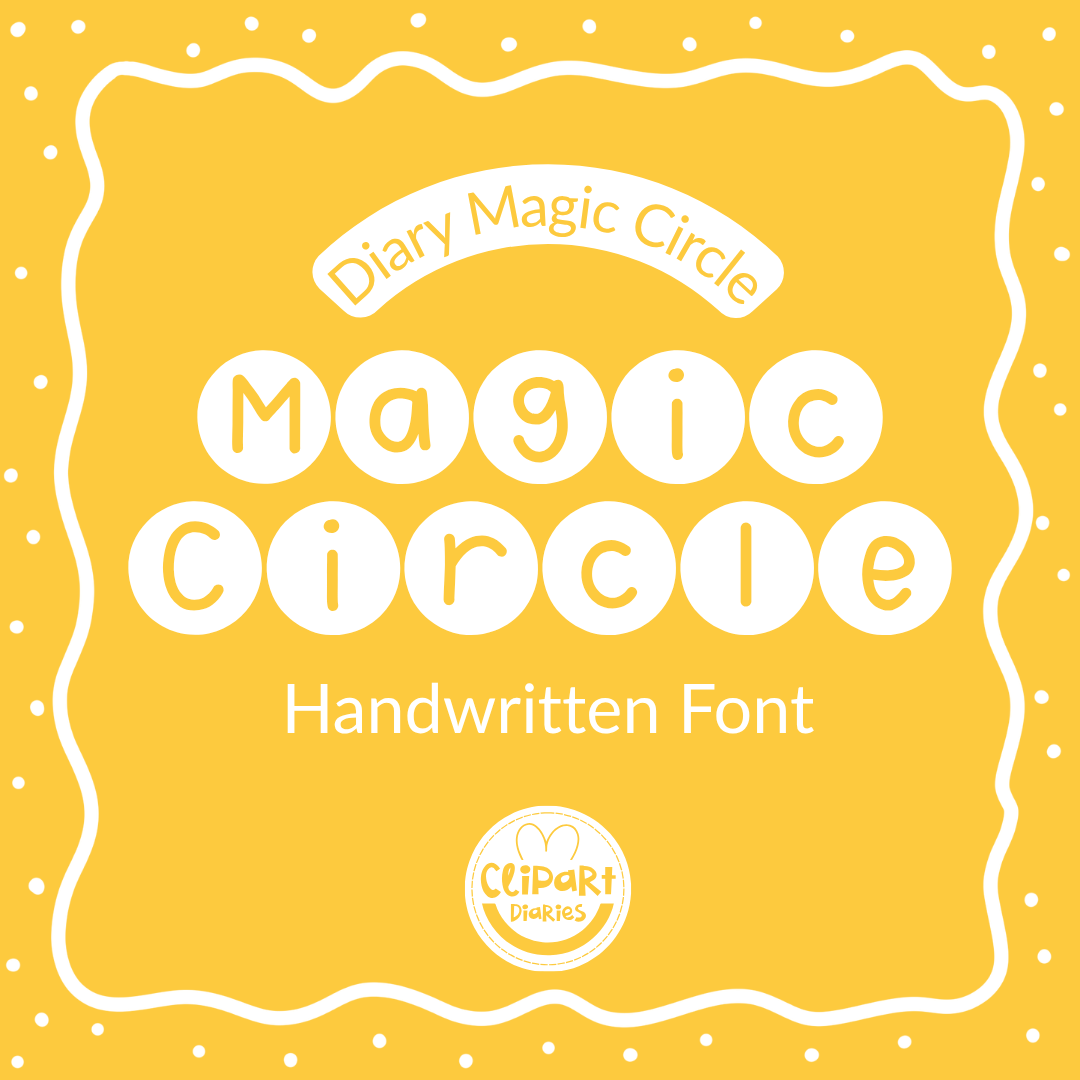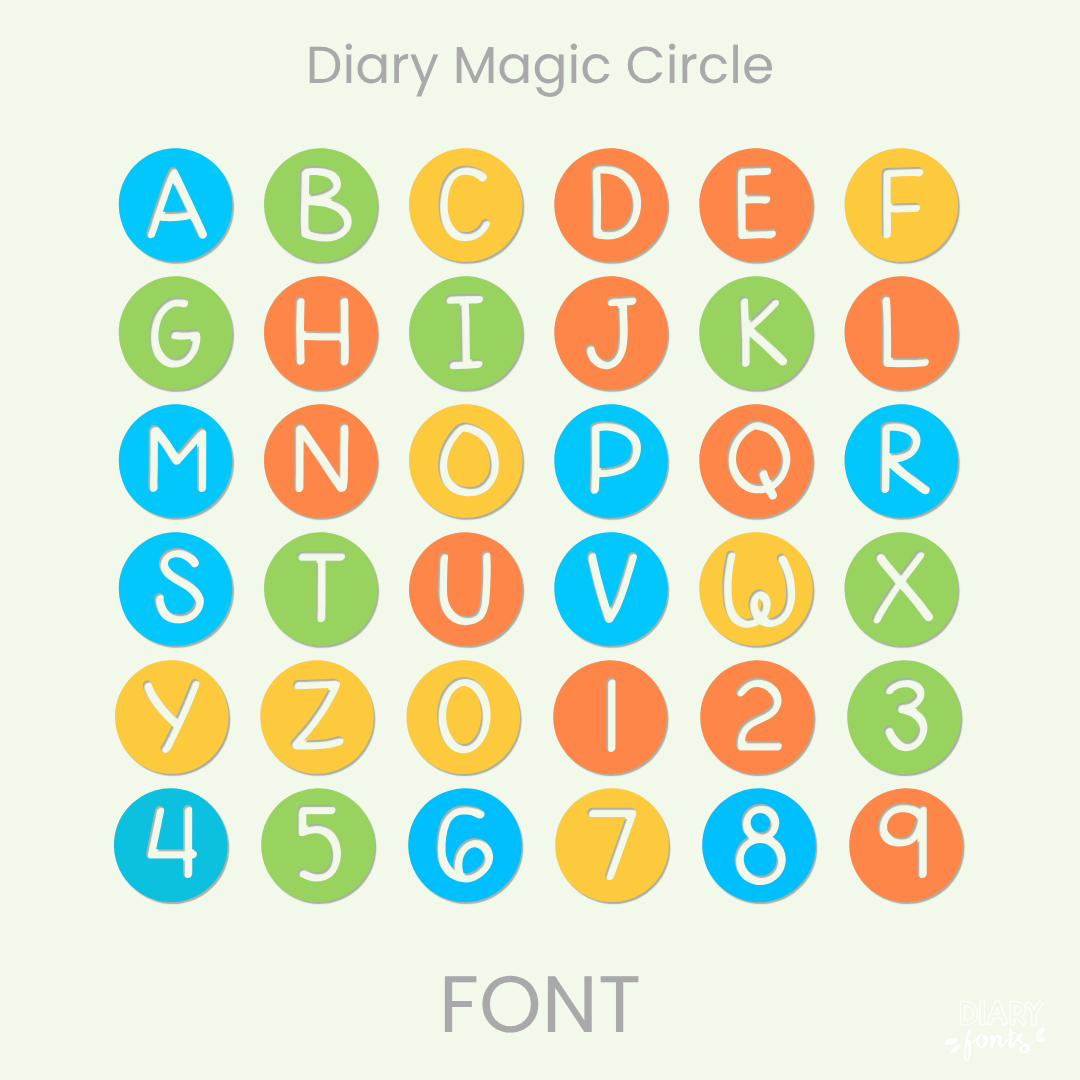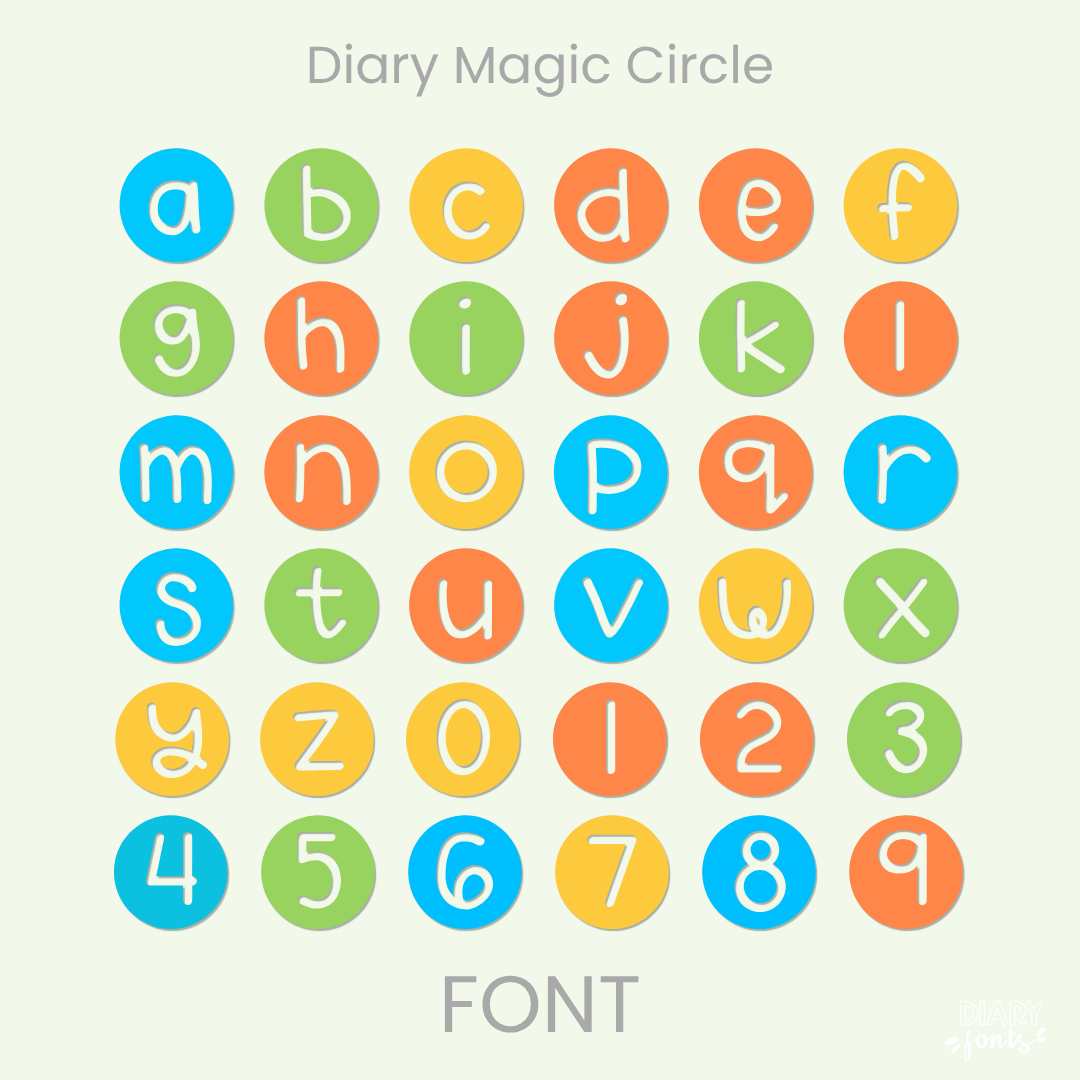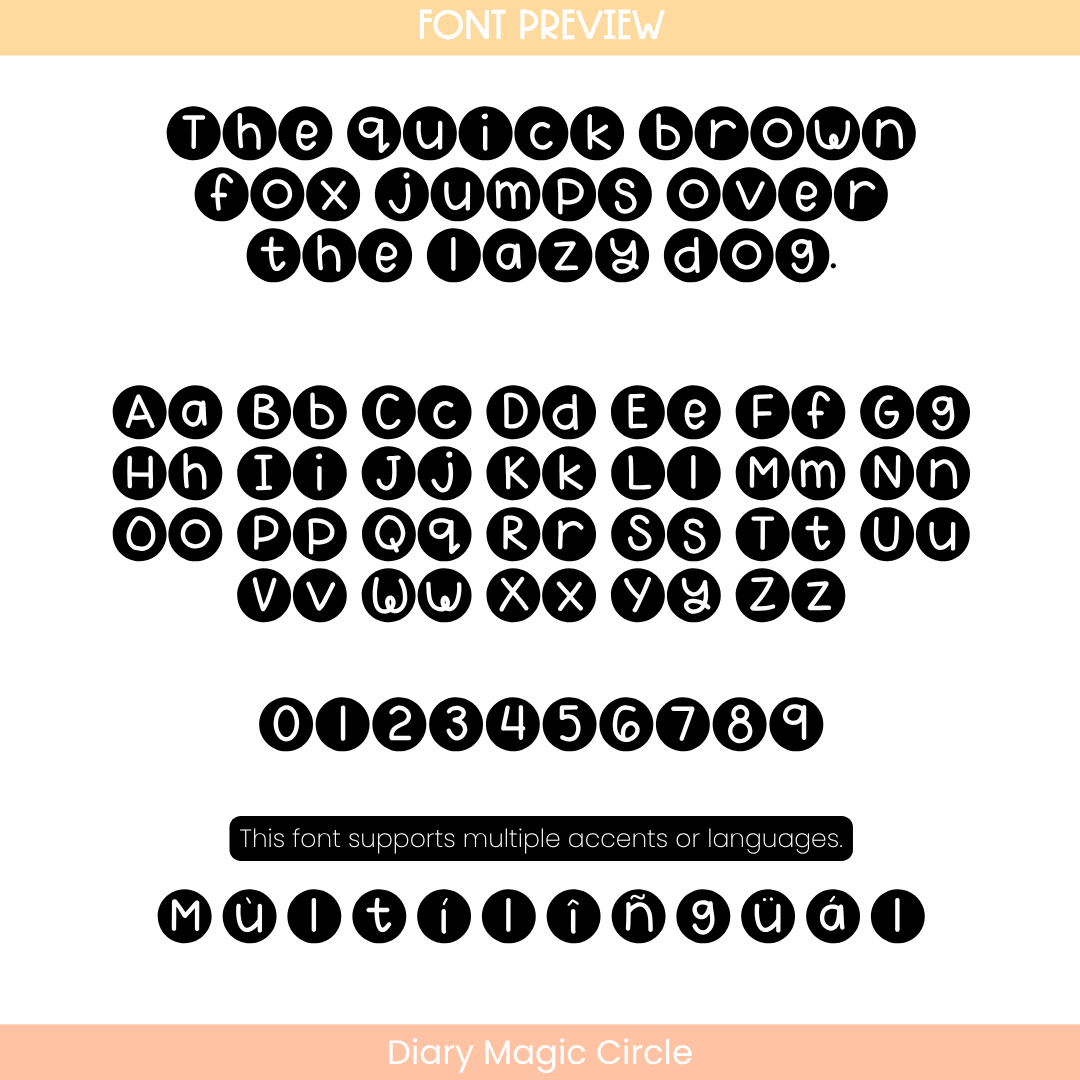
If you want to give your projects a magical and playful look, Diary Magic Circle is an excellent choice. Built on a neat, upright print structure, this typeface adds a charming twist with open circle accents integrated into the letterforms, giving a uniquely hand-crafted architecture to your text. It maintains clear spacing and a balanced visual weight, ensuring your text remains exceptionally crisp and easy for students to read.
This font is a perfect fit for engaging worksheets, unique classroom display titles, printable task cards, morning presentation slides, and daily school activities where you want headings to stand out with a creative flair. The download includes a full set of uppercase and lowercase letters, numbers, and multiple accents to support different languages. It is ready for use in Canva, MS Office, and Adobe Apps, and it works smoothly on the iPad with GoodNotes and Procreate. Whether you are creating personal classroom decorations or commercial teacher resources, this typeface brings a warm, fun, and approachable aesthetic to your design toolkit.